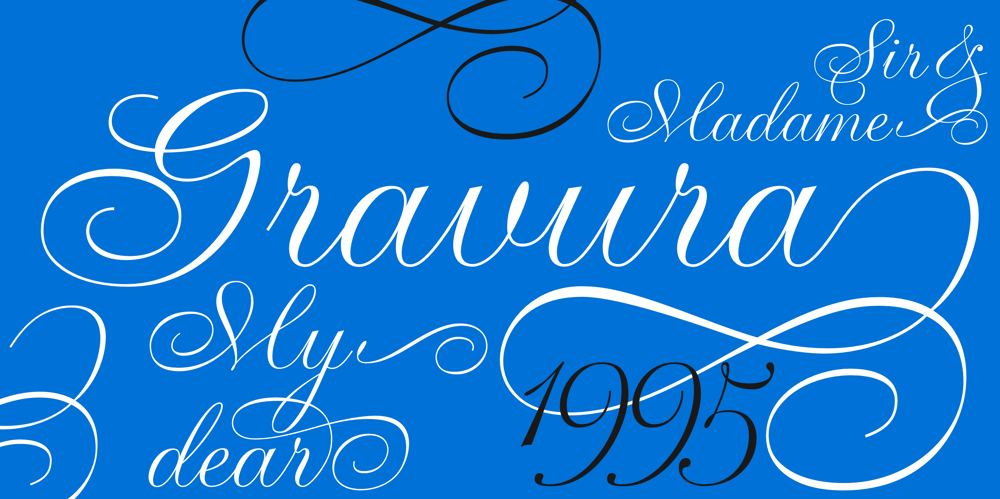
Gravura Font Family was designed by Phill Grimshaw and published by ITC. Gravura contains 1 styles and family package options. Noted British designer Phill Grimshaw designed Gravura in 1995. Gravura is a classic copperplate script with perfect strokes and proportions. The intricacy of its initial capitals blend beautifully with the simple elegance of its lowercase, whose letters have been designed to link together in the style of true handwriting. Text set in Gravura feels very personalized.